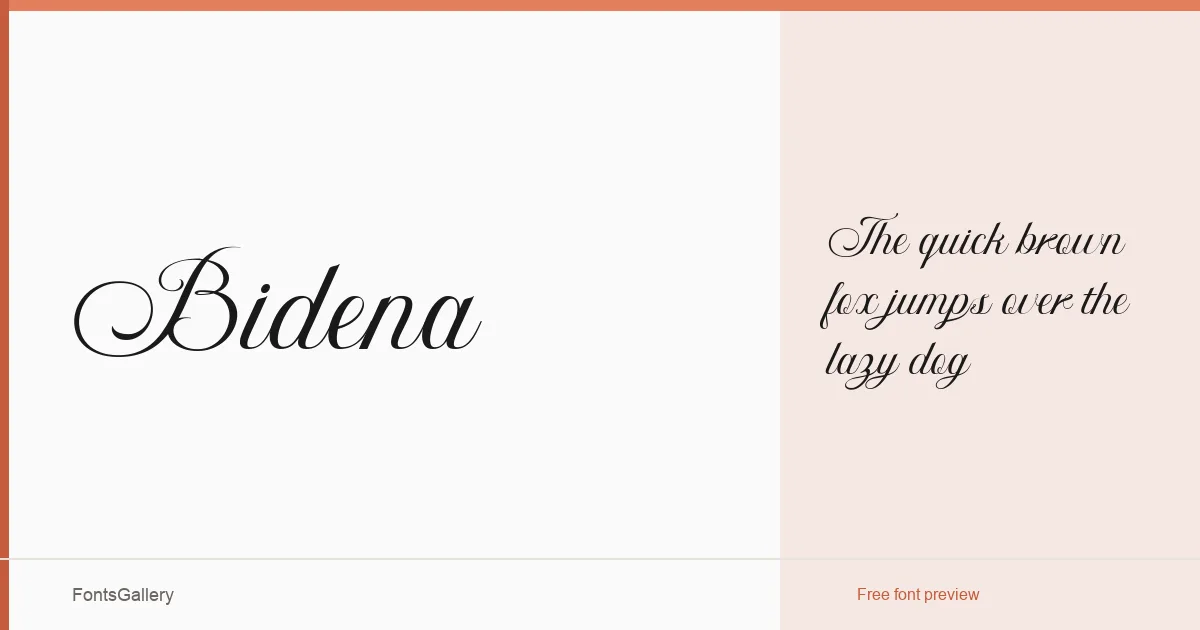
About Bidena Font
Bidena is a script typeface crafted by Naya and presented through twinletter.com, designed to embody elegance, romance, and timeless sophistication. Its flowing letterforms make it a compelling choice for designers seeking a refined, luxury aesthetic. With its classic sensibility, Bidena brings a graceful character to any creative project it adorns.
Bidena features the fluid, connected strokes characteristic of elegant script typefaces, evoking a sense of romance and classic luxury. Its letterforms carry a refined, handcrafted quality that balances decorative beauty with legibility, making each character feel intentional and polished. The overall rhythm of the typeface exudes a timeless charm suited to sophisticated visual compositions.
Bidena is ideally suited for logos, wedding stationery, invitation cards, greeting cards, and certificates where an elegant and luxurious tone is desired. Its romantic, classic character makes it particularly well-suited to bridal and high-end lifestyle branding. For a balanced typographic combination, Bidena pairs beautifully with Aresink for a cohesive script-forward design, or with Helvetica for a striking contrast between ornate and clean sans-serif styles.